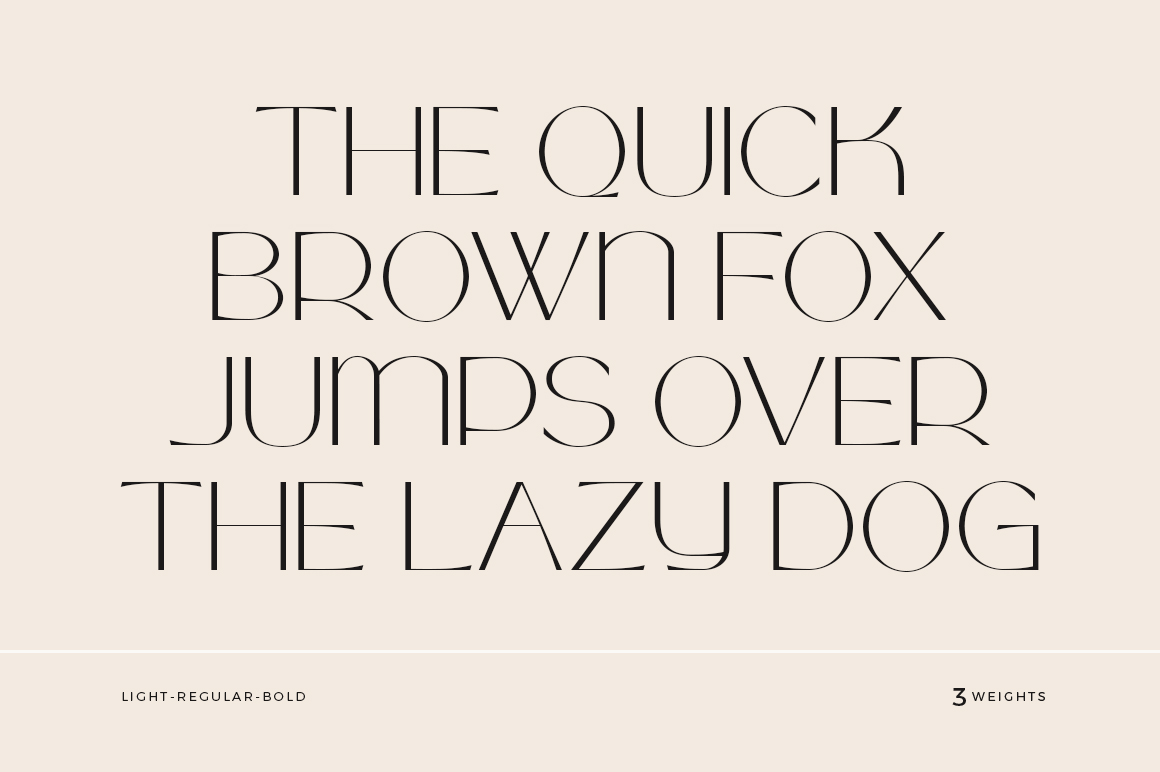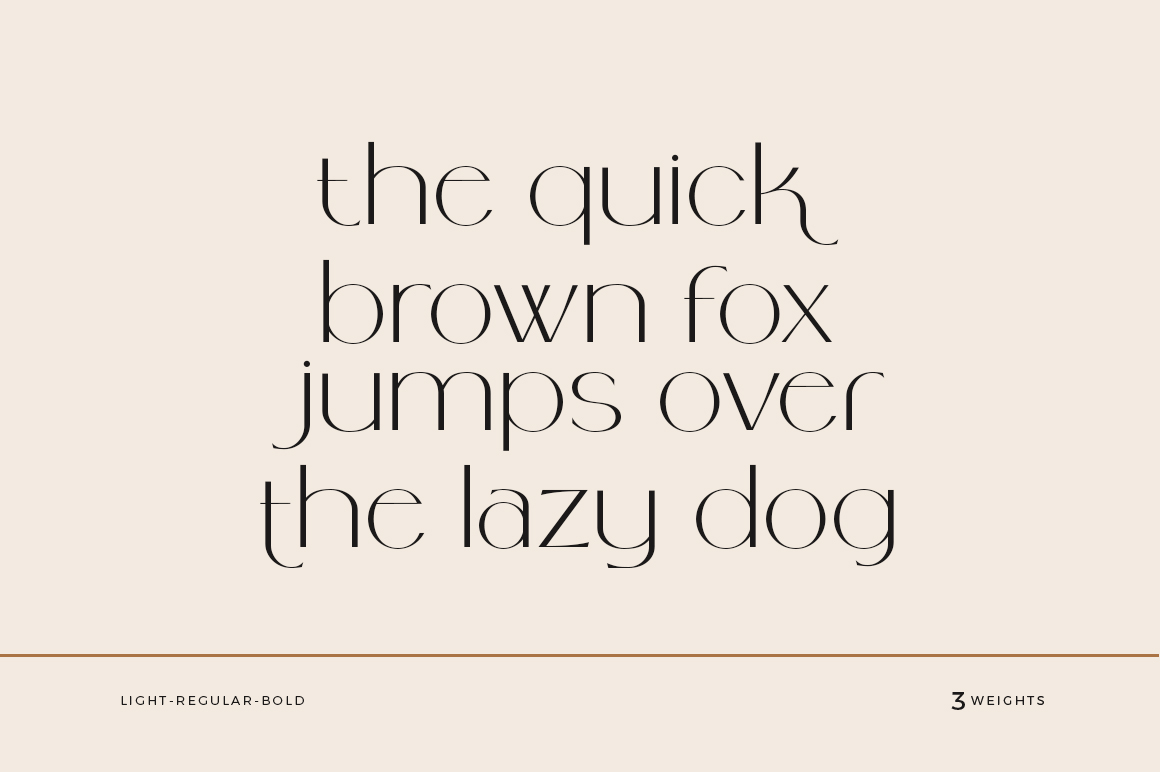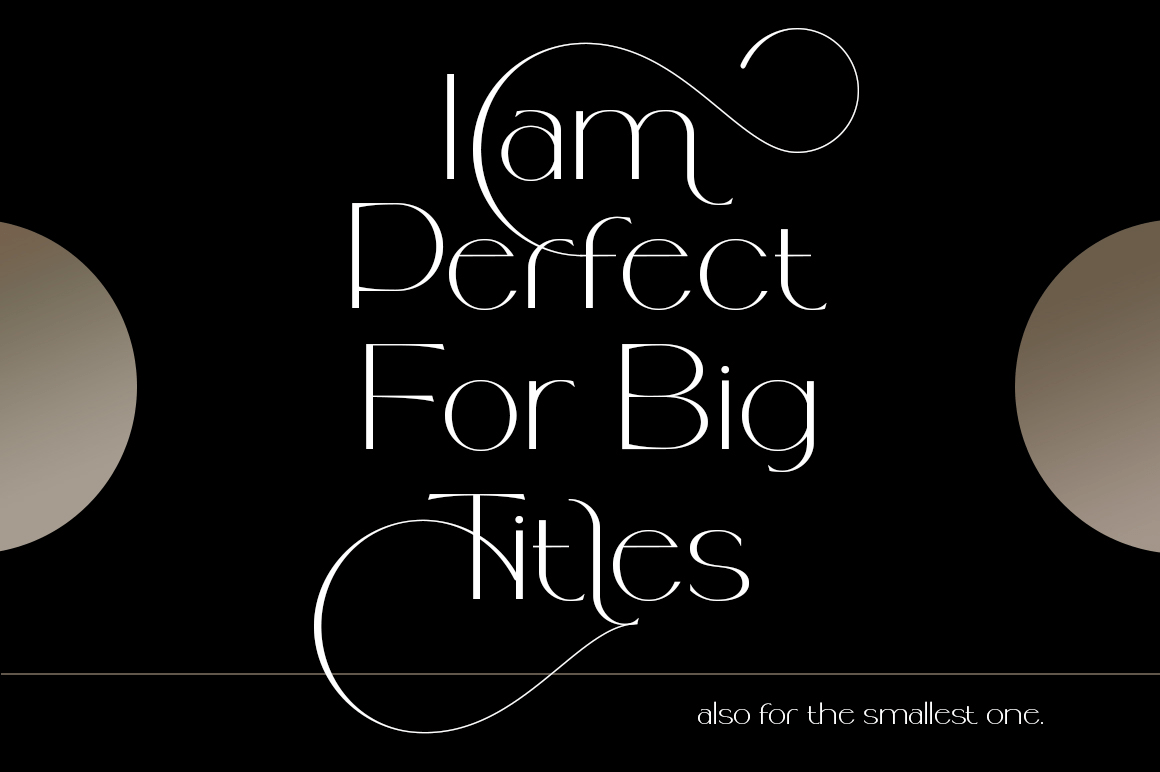
About Crayond
Introducing a beautiful and classy Crayond modern san serif typeface with lots of alternative styles to choose from, planting it firmly in a modern design. It is a careful collaboration between beauty and function. The beautiful modern Crayond sans serif…